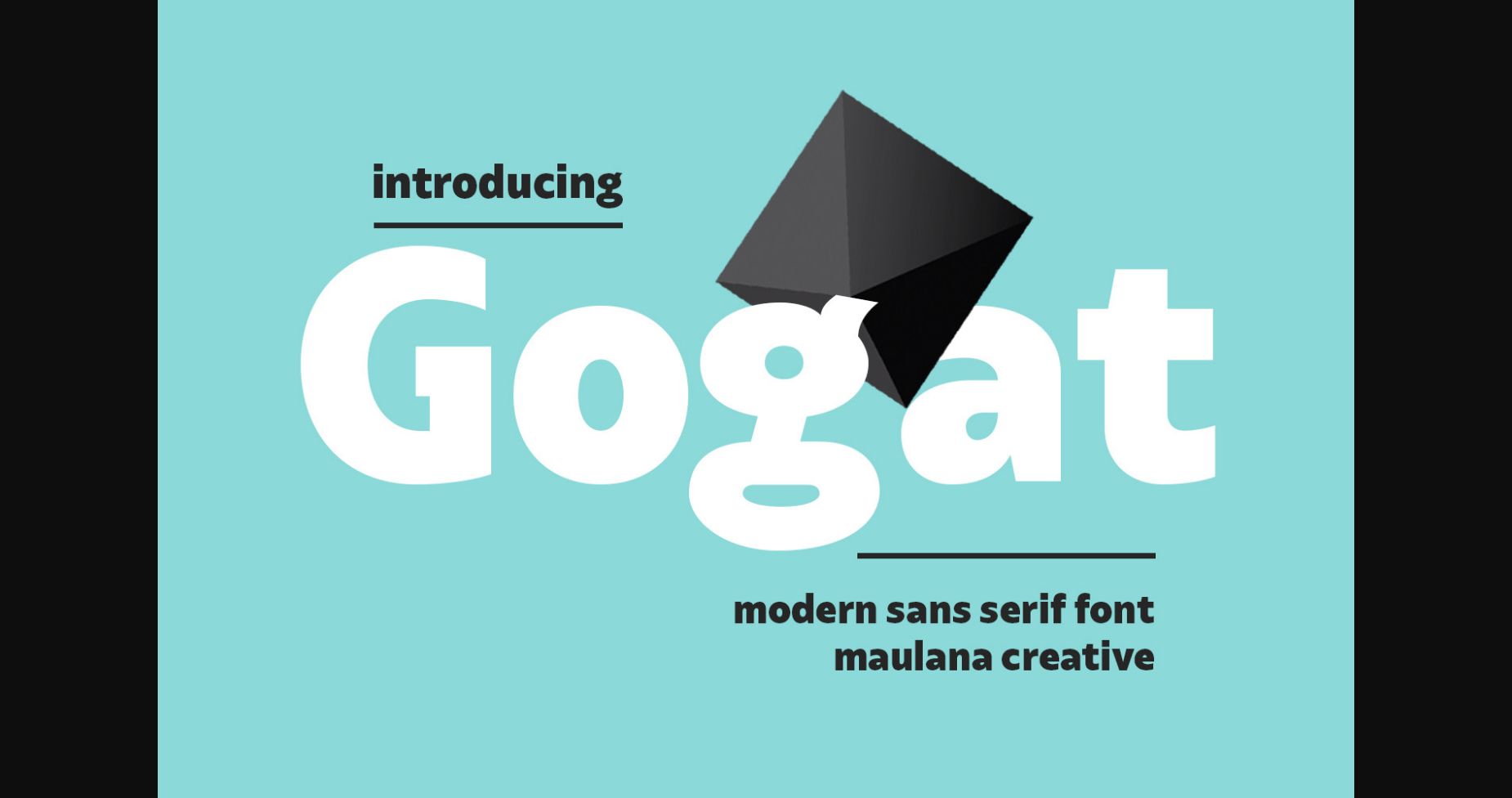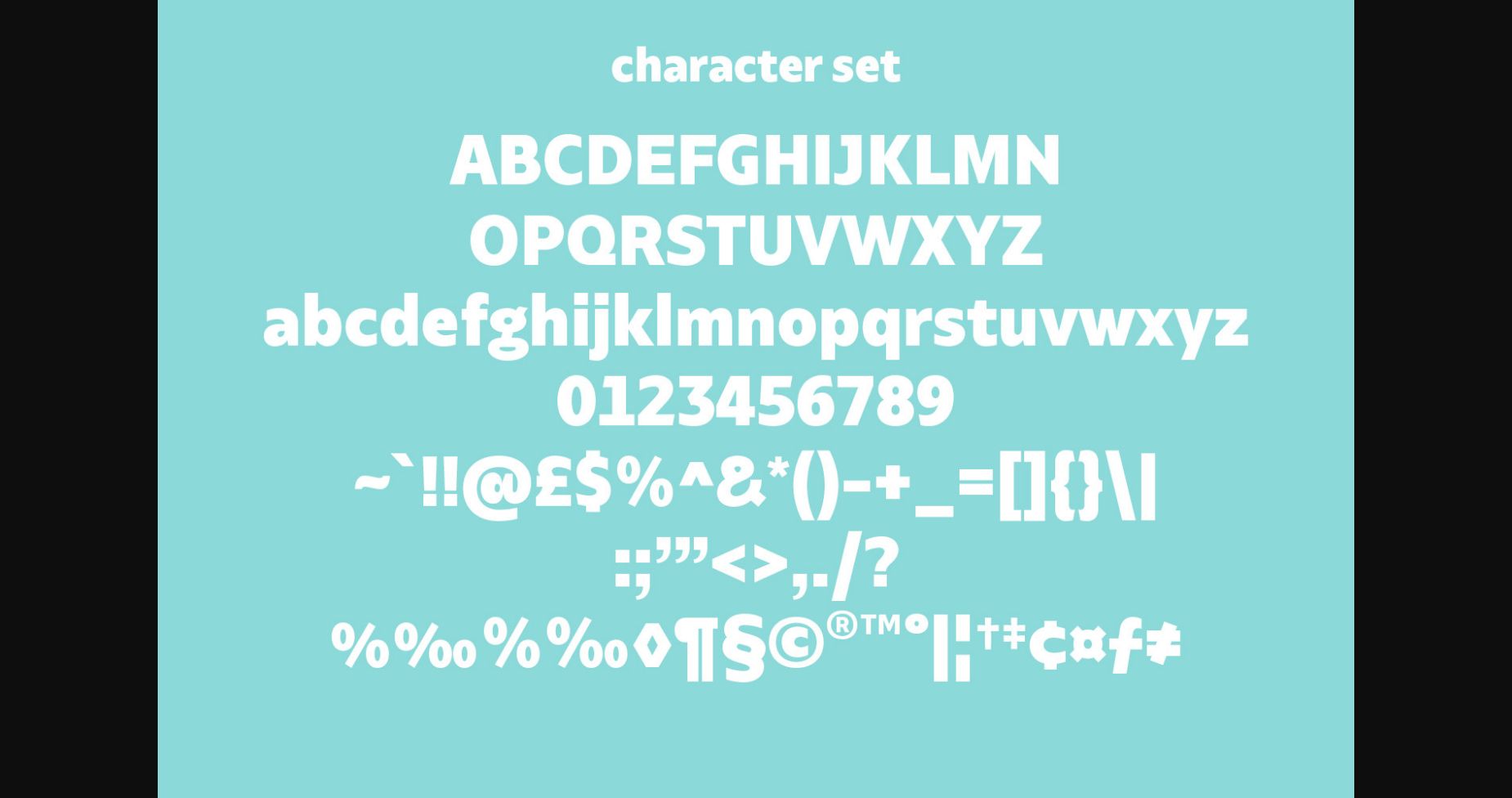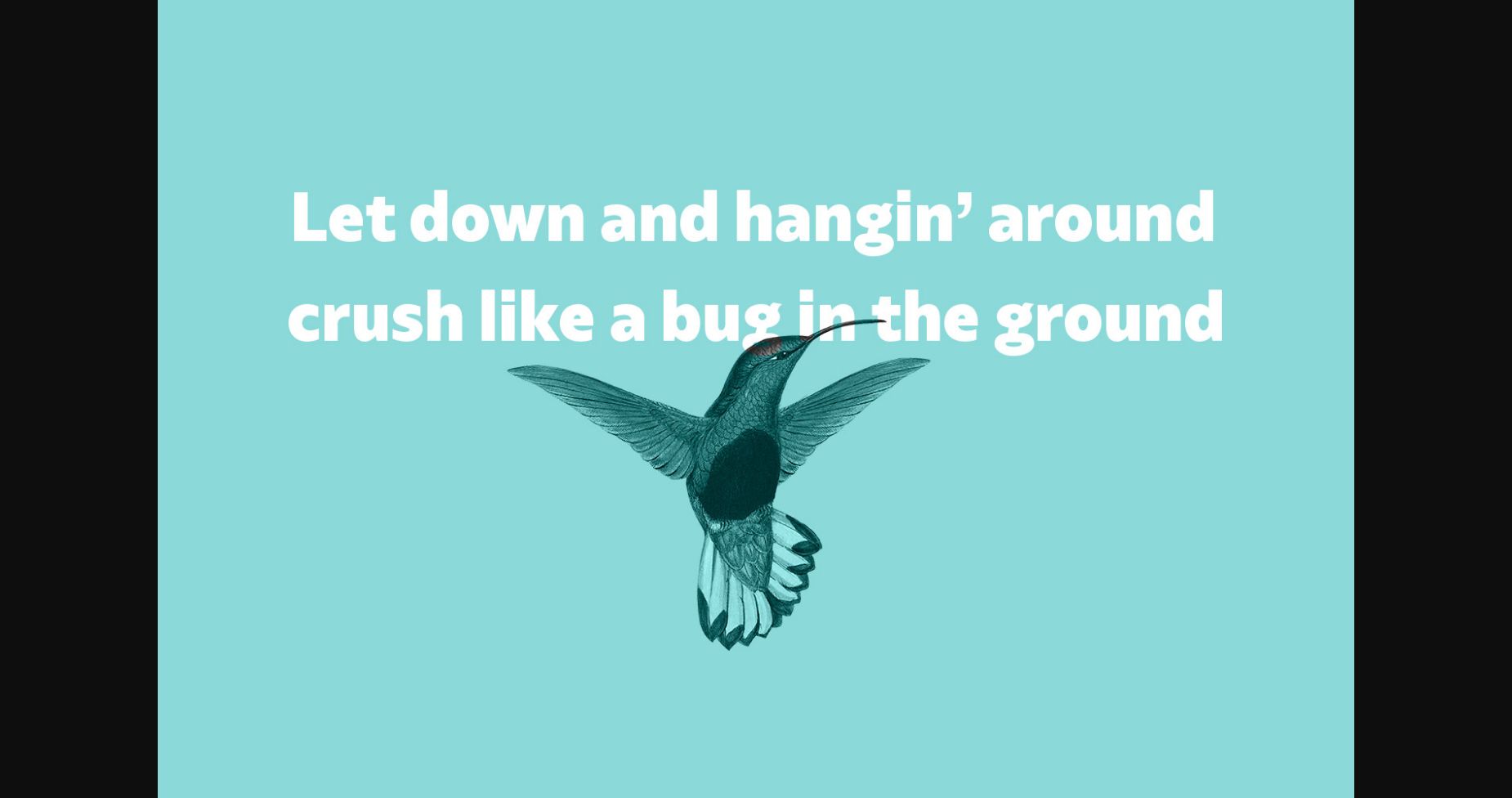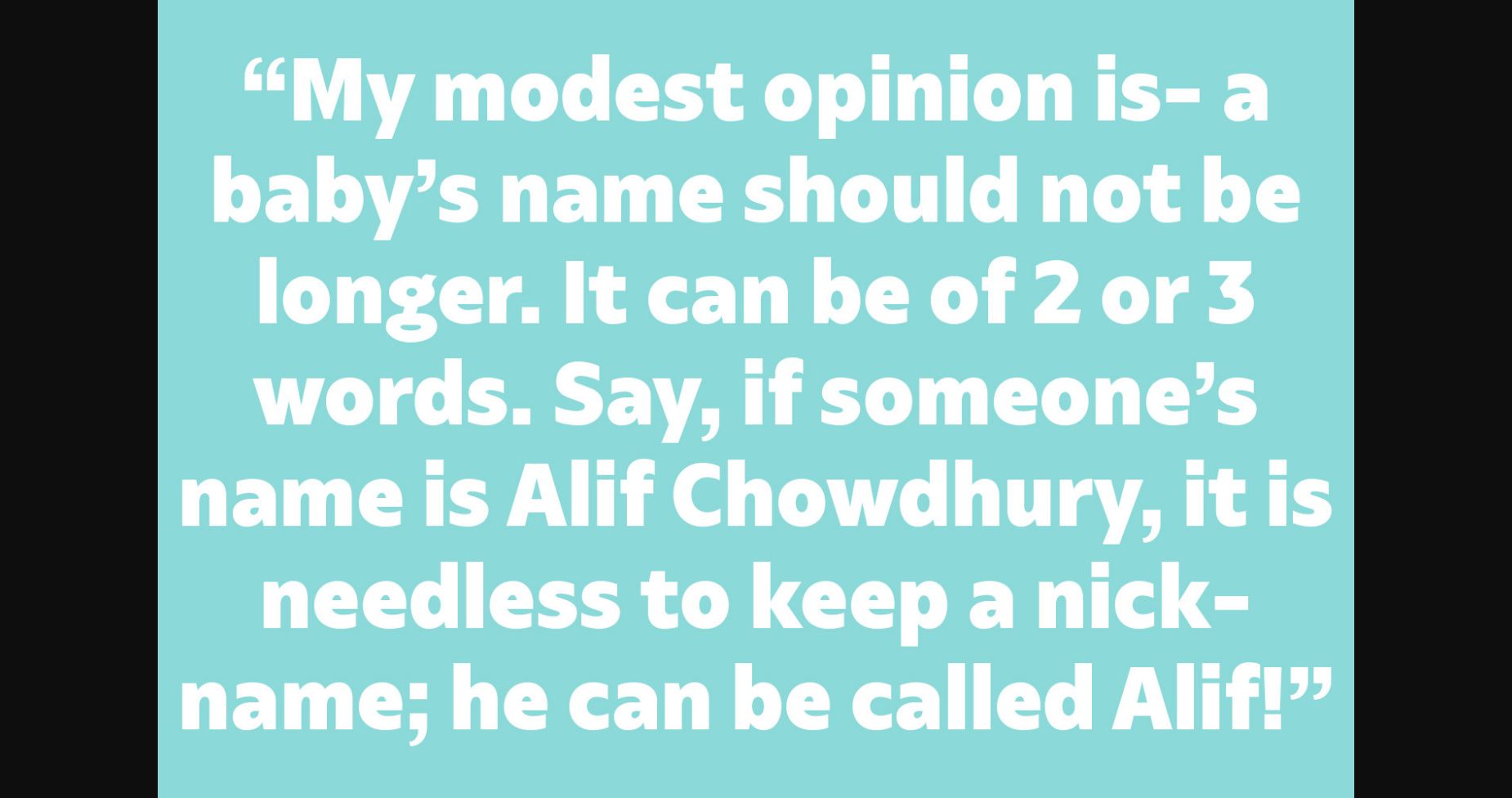
About Gogat Font
Gogat is a simply semi-geometric sans serif font. With medium low contrast stroke, fun character with a bit of ligature and alternates to give you extra creative work. Gogat is good for logo design, social media, movie titles, book titles, short text, and even long text, and good for your secondary text together with a sans or serif. Make stunning work with Gogat font!